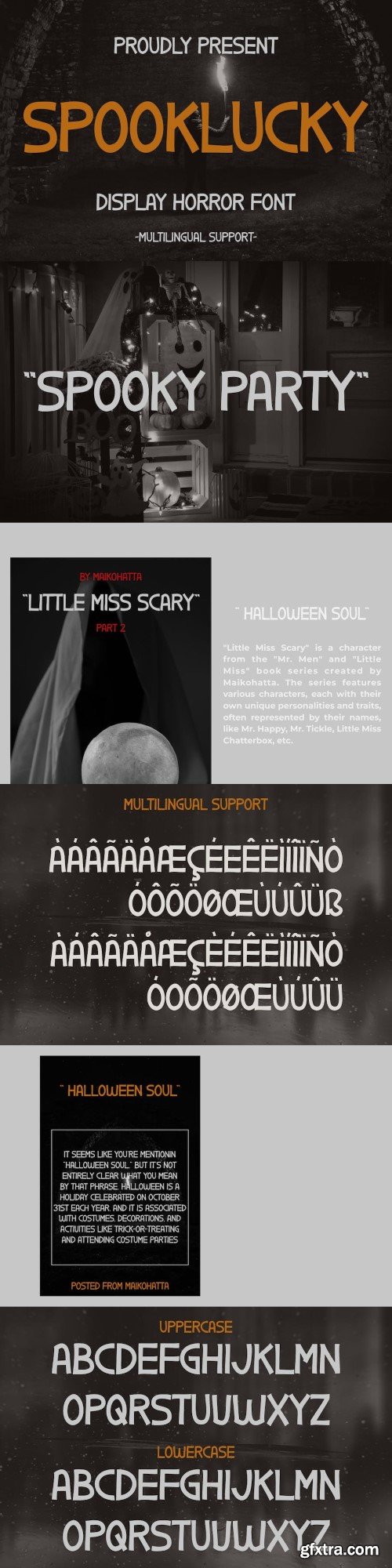
spooky - display horror font
Spooklucky is a type of font specifically designed to create a spooky, mysterious atmosphere and depict the spirit of Halloween celebrations. This font can be used in various Halloween-related media, such as party invitations, posters, merchandise designs, greeting cards, warning signs, or within website designs with Halloween themes.
- Uppercase
- Lowercase
- Multilingual